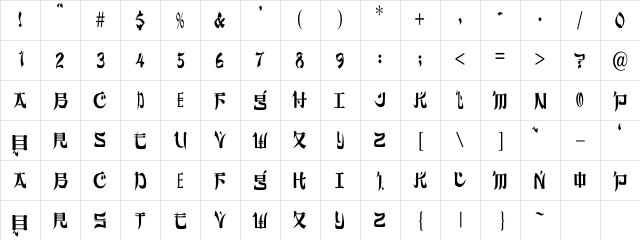
FarEastMedTn Regular Free Font
FarEastMedTn Regular
Design Context for FarEastMedTn
FarEastMedTn is a composed and adaptable typeface that performs quietly and consistently across a wide range of design contexts.